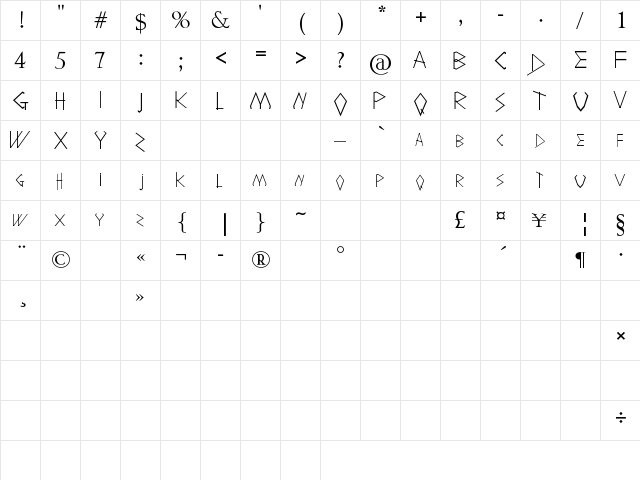
Holitter Shadow Regular
Design Context for Holitter Shadow Typeface
Holitter Shadow is built around its visual character rather than neutral utility — its distinctive forms are designed to make an impression at display sizes.
Font Pairing: Pair with a clean neutral sans-serif for body copy to let Holitter Shadow's character lead without overwhelming the composition.
Pro Tip: Treat Holitter Shadow as the centrepiece of your typographic hierarchy. One strong heading set in a decorative face can carry an entire layout.